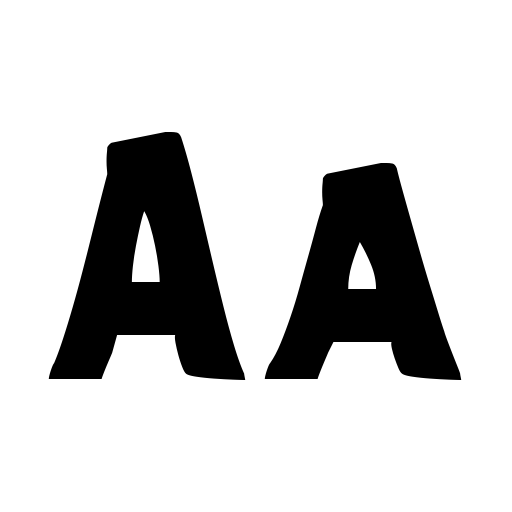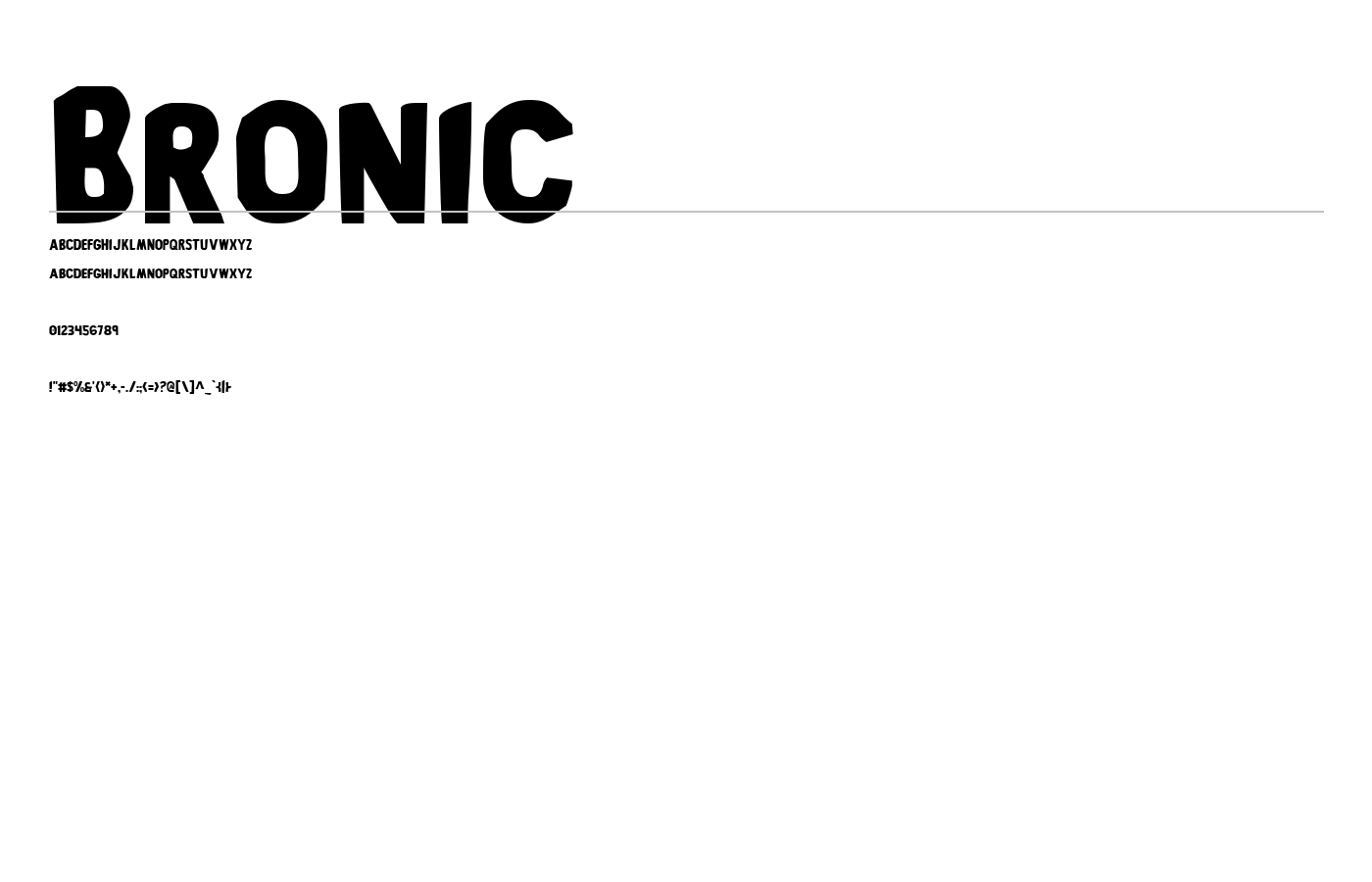
Bronic is a bold, condensed sans serif font with a strong, playful character and a slightly uneven, hand-cut appearance that gives it a unique charm. Its heavy weight and tight spacing make it ideal for eye-catching headlines, logos, and branding that seek a rugged yet approachable look. This font works especially well in projects that want to convey strength and creativity with a touch of vintage or craft-inspired style.
Bronic Font
About Bronic Font